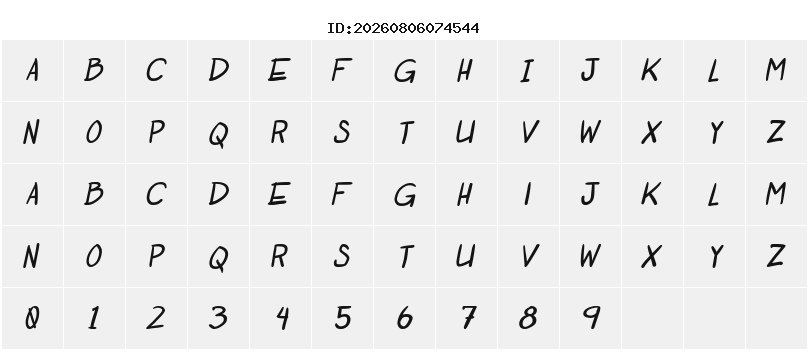
Otaku Rant Preview
• Font Name: Otaku Rant
• Font Style: Gras Italique
• Font ID: Otaku Rant Bold Italic:Version 1.00
• Full Font Name: Otaku Rant Bold Italic
• Version: Version 1.00 May 26, 2013, initial release
• PostScript Name: OtakuRant-BoldItalic
About Otaku Rant.ttf
Otaku Rant.ttf is a modern, elegant sans-serif font designed for ultimate readability and visual harmony. Perfect for branding, headlines, web design, and print materials.